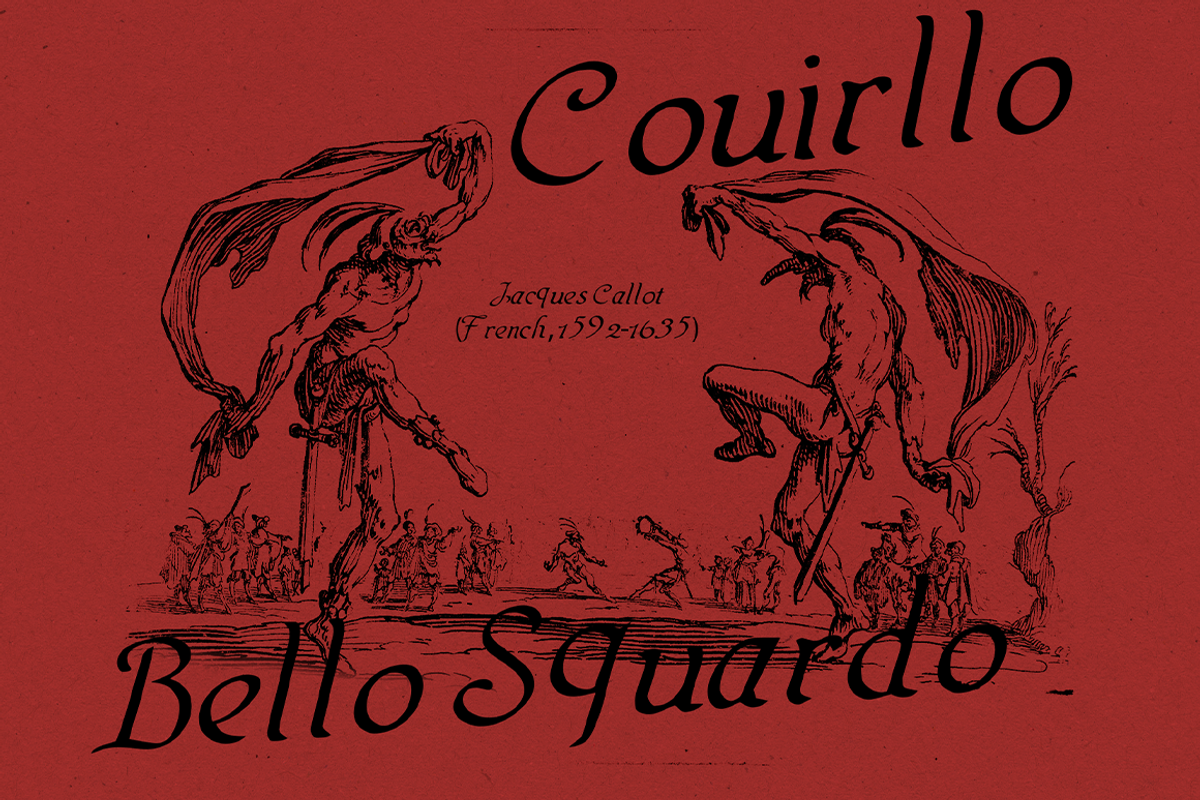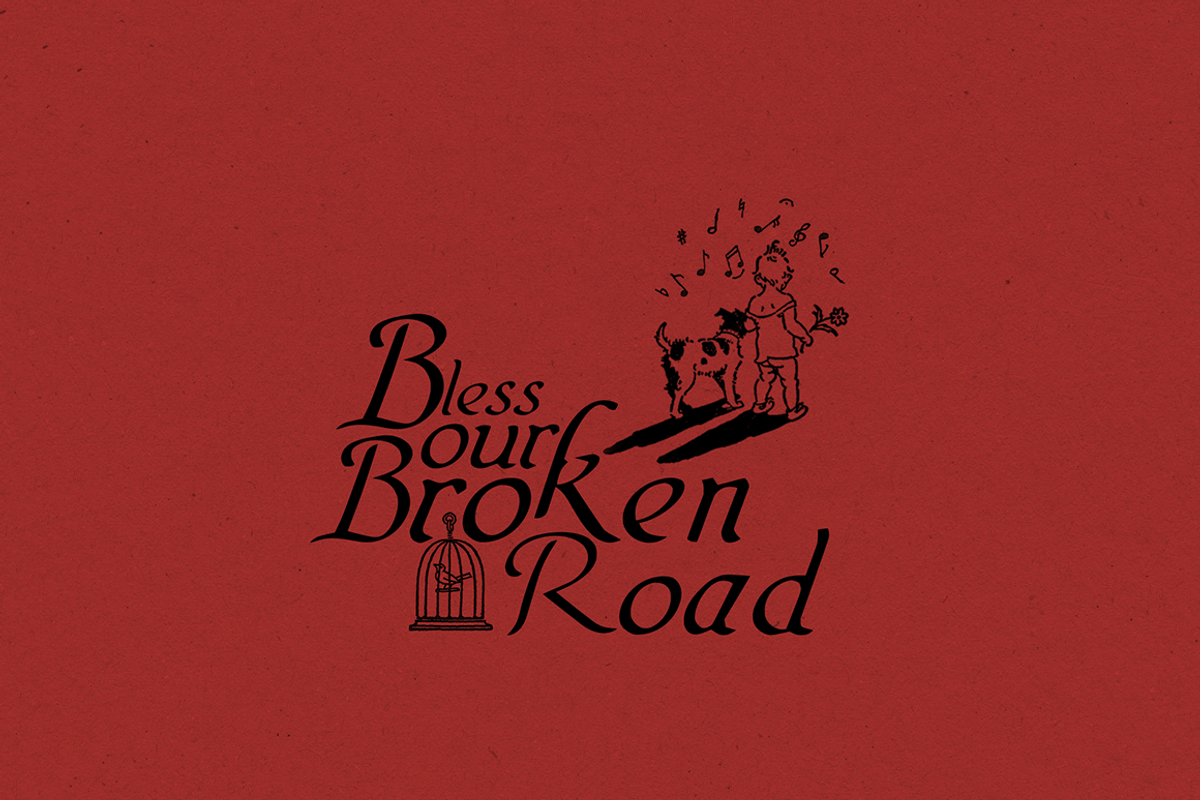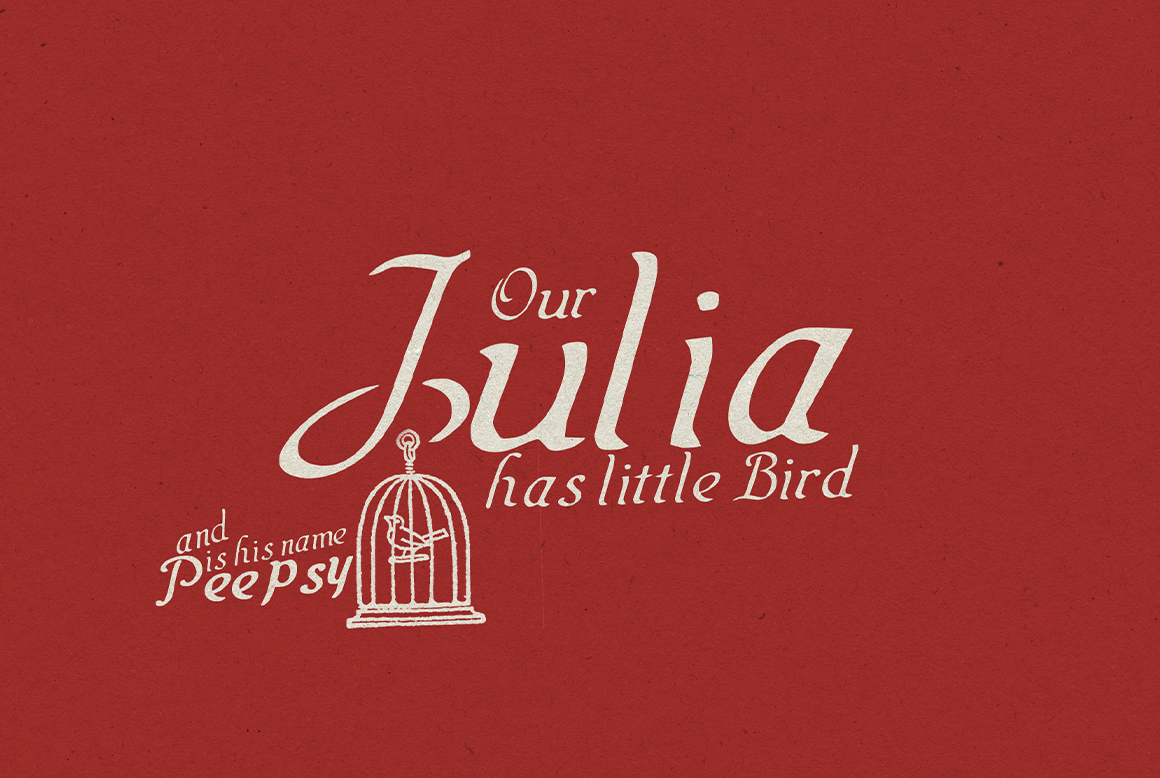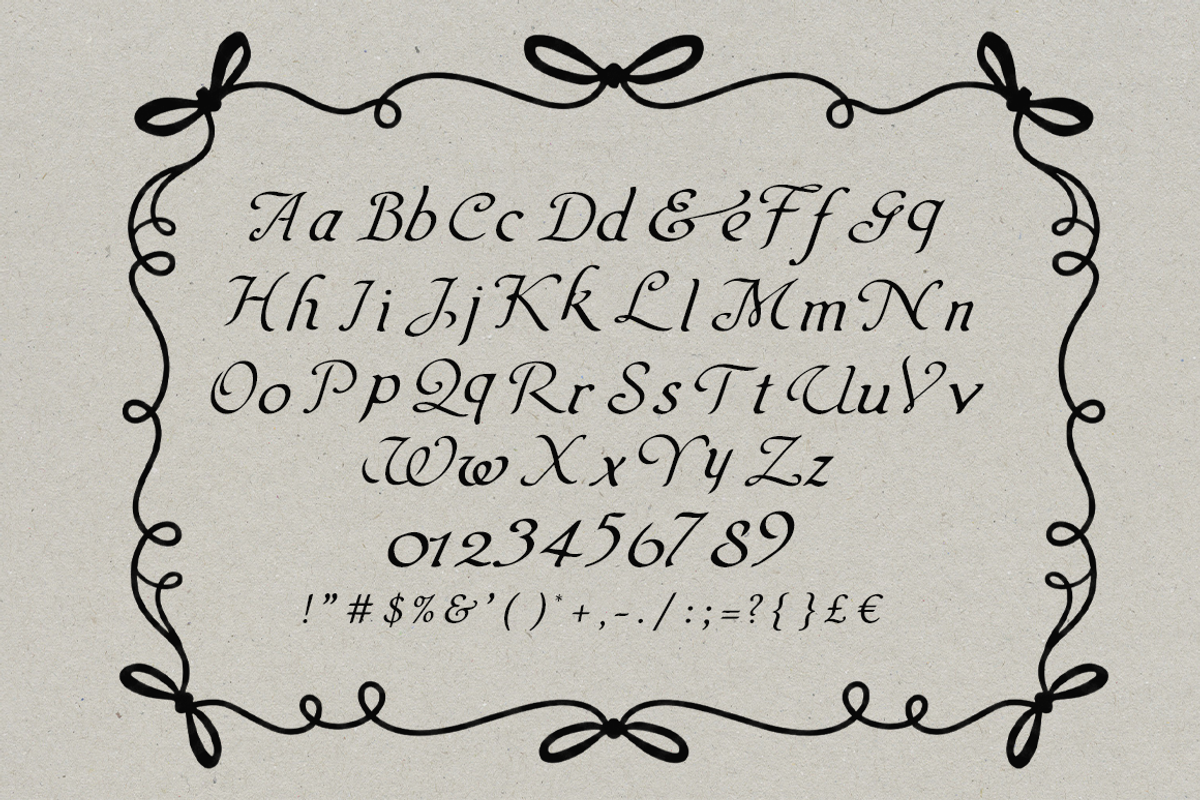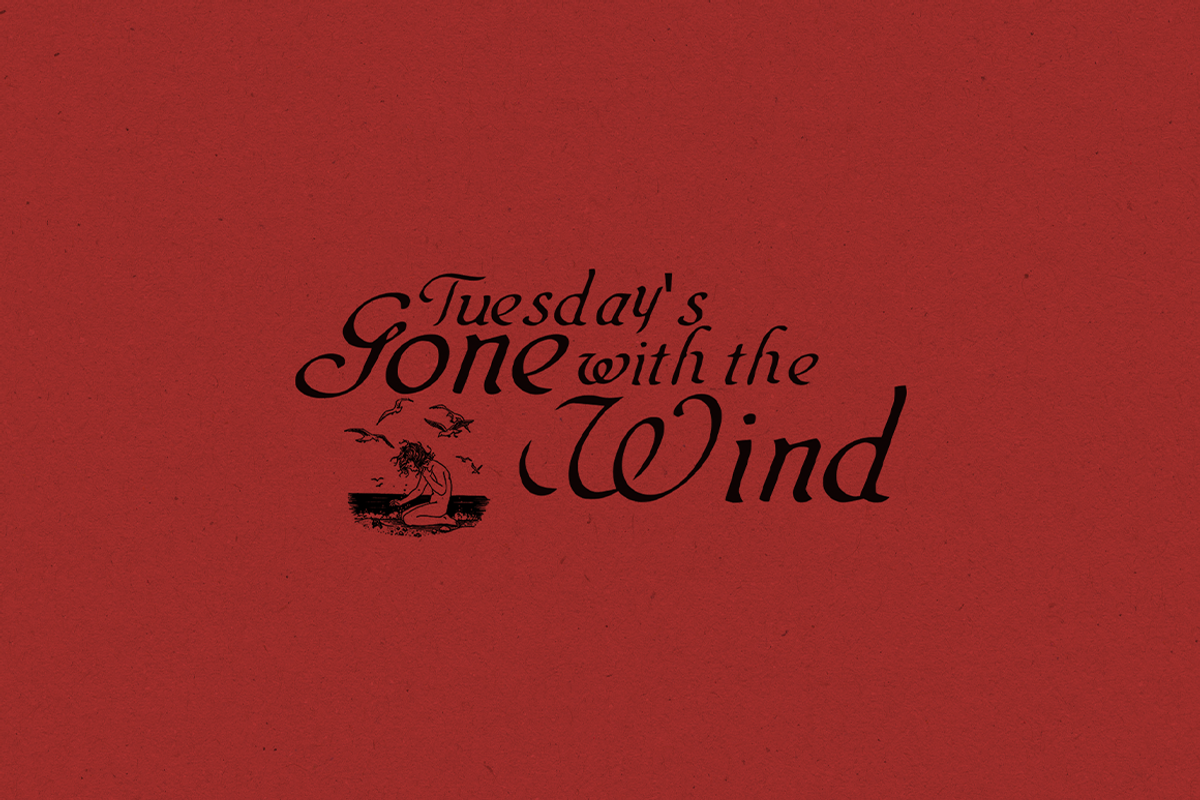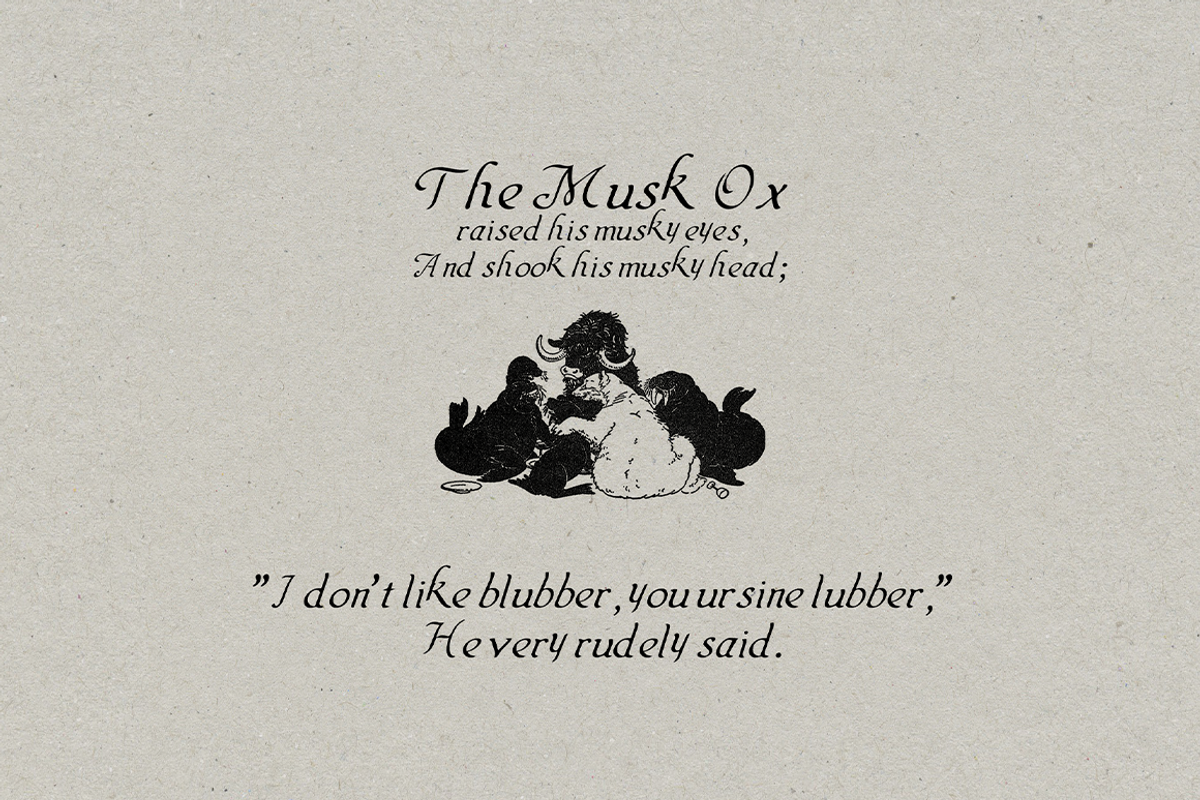
Vertrauen - Font
Vertrauen-Regular – Elegant Whimsical Script Font
Bring timeless elegance to your designs with Vertrauen-Regular, a beautifully crafted font inspired by vintage alphabet sheets from the 1800s.
This decorative typeface captures the refined charm and distinctive character of 19th-century lettering, with its graceful curves, classic proportions, and subtle vintage flair.
Each letter feels hand-drawn yet highly legible, making it perfect for projects that call for authenticity, warmth, and historical soul.
Full uppercase & lowercase alphabet
Numerals, punctuation & special characters
Whether you're creating something romantic, literary, or nostalgically vintage, this font adds depth, character, and authentic 19th-century elegance to every word.